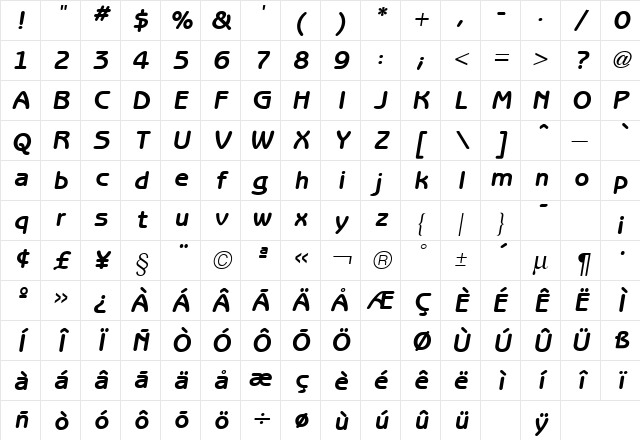
Complete Benguiat Gothic Bold Italic glyph index. Displaying only characters natively supported by Benguiat Gothic Bold Italic font.
Benguiat Gothic takes a clean, functional approach - its unadorned letterforms prioritise legibility and work reliably across screen and print environments. The slanted form adds forward momentum and visual energy. Its bold stroke weight gives it real presence on the page.
Font Pairing: Use Benguiat Gothic for headlines alongside a lighter-weight sans or serif for body copy to establish clear visual hierarchy.
Pro Tip: Use Benguiat Gothic for UI labels, navigation, and short-form body copy where clean legibility is the priority.